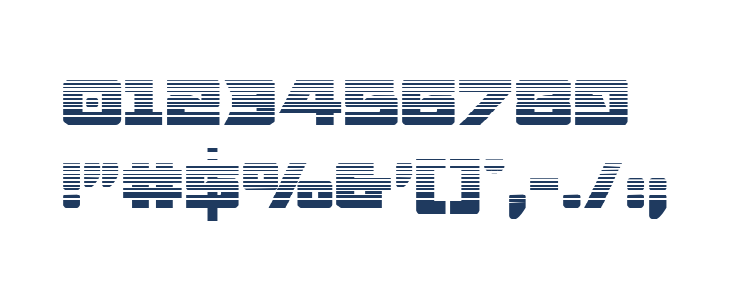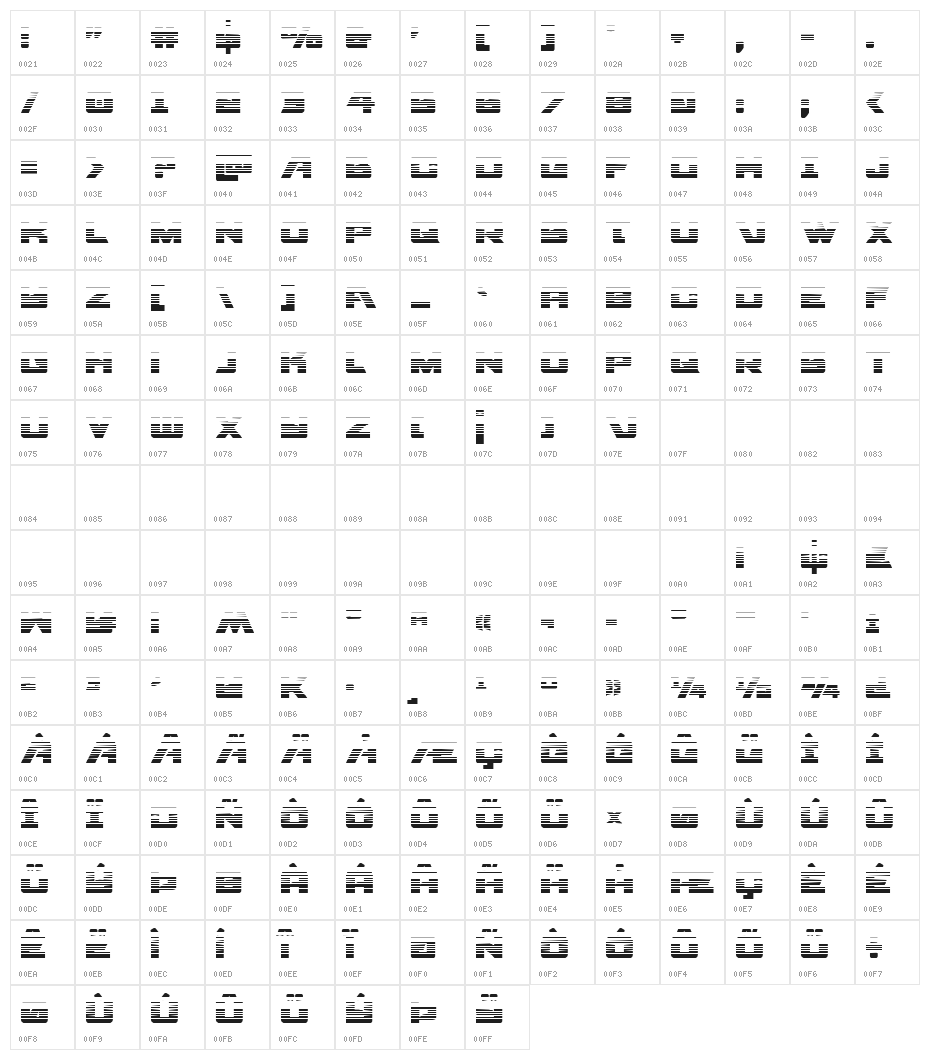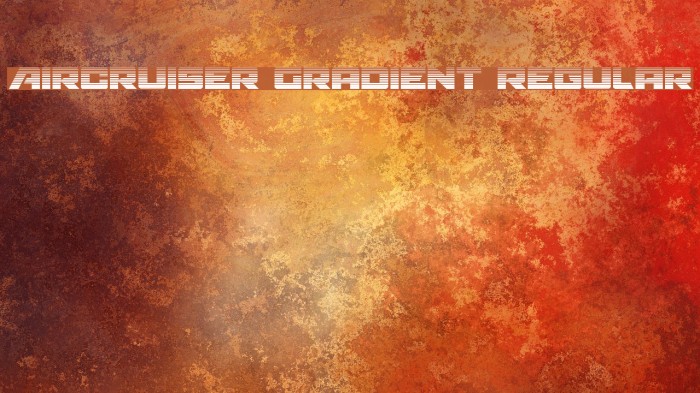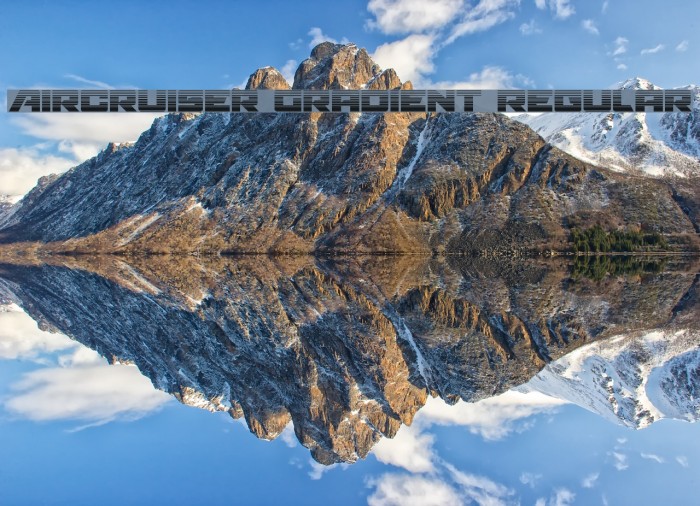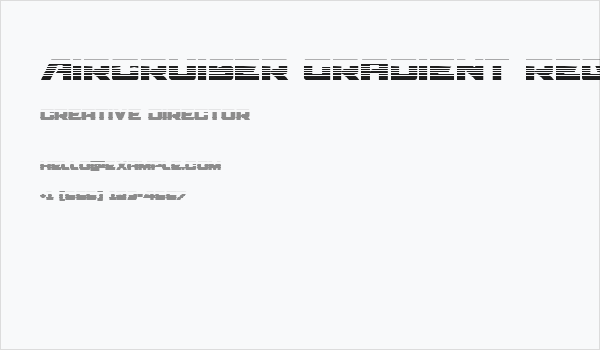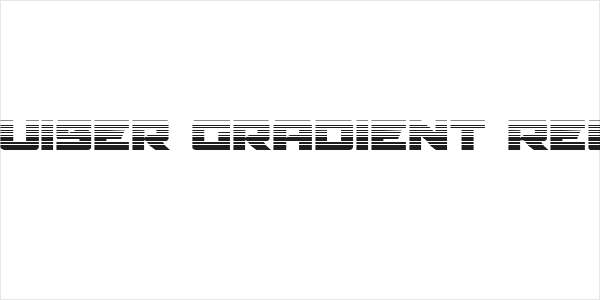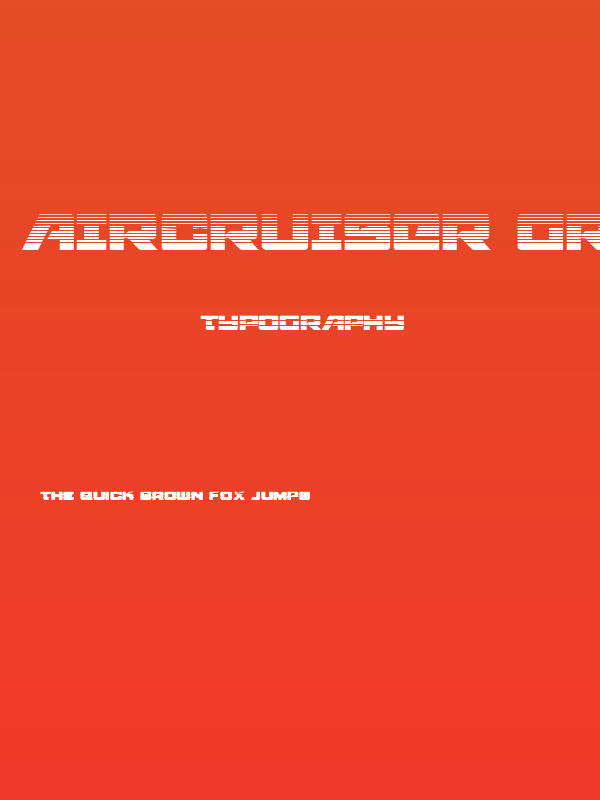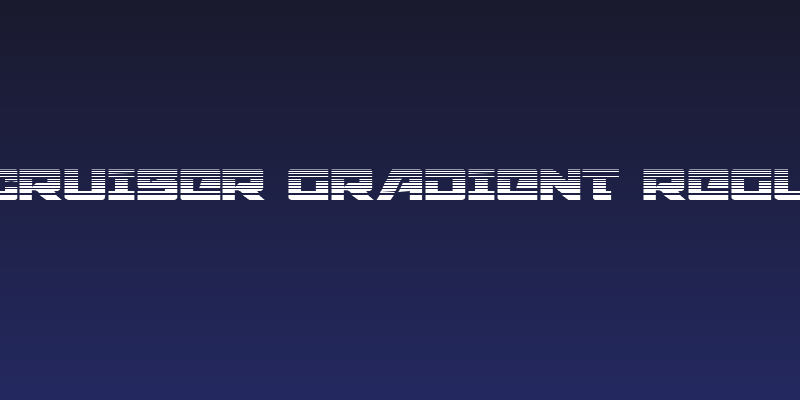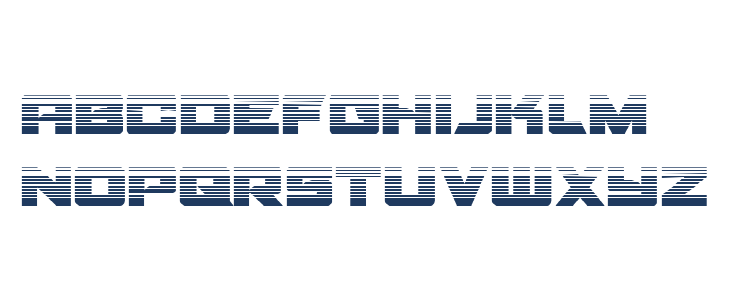
Aircruiser Gradient Regular Font
Aircruiser Gradient Regular Description
This font features a bold, futuristic design with a distinct gradient effect that gives it a dynamic and modern appearance. The characters are constructed with horizontal lines that create a sense of movement and depth. The uppercase and lowercase letters maintain a consistent style, with sharp angles and a geometric structure. The numbers and special characters are designed to match the overall aesthetic, making them suitable for a variety of creative applications. The font's unique style is ideal for projects that require a bold and eye-catching typeface.
| Proposed Projects | Ideal for sci-fi themed designs, video game graphics, posters, and branding that requires a modern and dynamic look. |